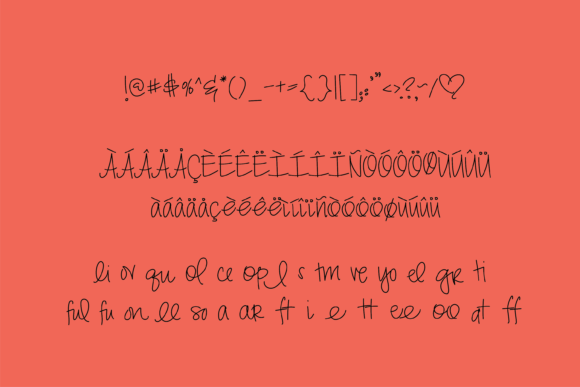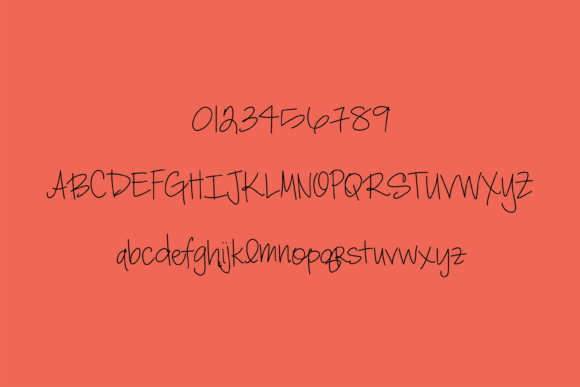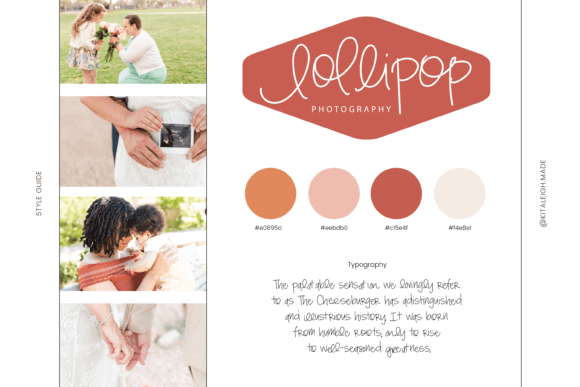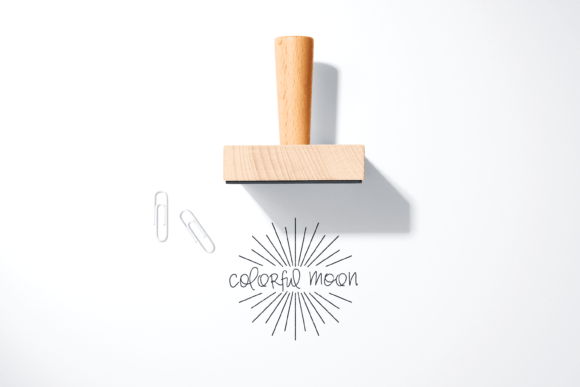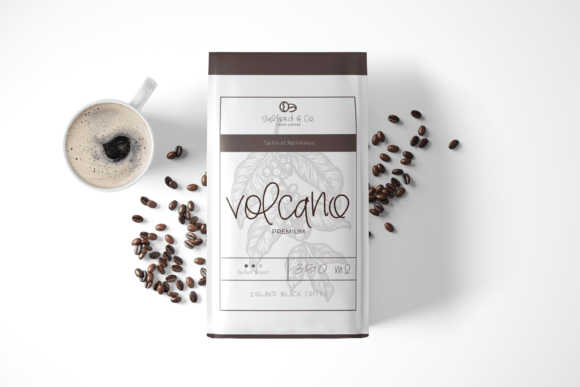
Introduction to Love Caroline Font
As a designer, have you ever stumbled upon a perfect font that makes your creative project feel like a work of art? For me, that moment came when I discovered the “Love Caroline Font”. Its charming, handwritten style immediately caught my eye, and I knew I had to learn more. With its smooth, flowing strokes and playful feel, this font is the perfect addition to any design.
Whether you’re creating an invitation, branding a new business, or designing a logo, the “Love Caroline Font” offers a unique and romantic aesthetic that sets your project apart. Its delicate letterforms and multilingual support make it a valuable resource for designers looking to add a personal touch to their work. Plus, with a transparent background and free download options, this font is easily accessible and versatile for a variety of applications.
Key Features of Love Caroline Font
- High-quality, elegant script font designed for creative projects, ideal for weddings, invitations, and other romantic themes.
- Comes with a transparent background, making it easy to use on any background image or color.
- Features a beautiful, flowing script with unique characteristics that set it apart from other fonts.
Honest Review: Love Caroline Font
As a designer, I’m always on the lookout for high-quality fonts that can elevate my creative projects. Recently, I stumbled upon the Love Caroline Font, and I’m excited to share my honest review with you.
What works well about the Love Caroline Font is its versatility and the wide range of styles available. From elegant script to bold sans-serif, this font family has got you covered for any design project. The quality of the font is top-notch, with crisp lines and a transparent background that makes it perfect for overlaying on images or textures.
Here are some of the key features that make the Love Caroline Font a valuable design resource:
- ✨ High-quality design with crisp lines and transparent background
- ✨ Versatile font family with multiple styles to choose from
While the Love Caroline Font is an excellent addition to any designer’s toolkit, there are a few limitations to keep in mind:
- ⚠️ Limited character set, which may not be suitable for large blocks of text
- ⚠️ May not be as readable in very small font sizes
Overall, I’m impressed with the Love Caroline Font, and I think it’s a great resource for designers working on creative projects. With its high-quality design and versatile style options, it’s definitely worth considering for your next project.
How to Use Love Caroline Font
The Love Caroline Font is a high-quality design resource ideal for various creative projects. It features a beautiful, elegant script that can add a touch of sophistication to your work.
For the best results, use the Love Caroline Font in conjunction with high-quality images and design elements. Some common use cases include:
- Food and beverage branding
- Personalized gifts and stationery